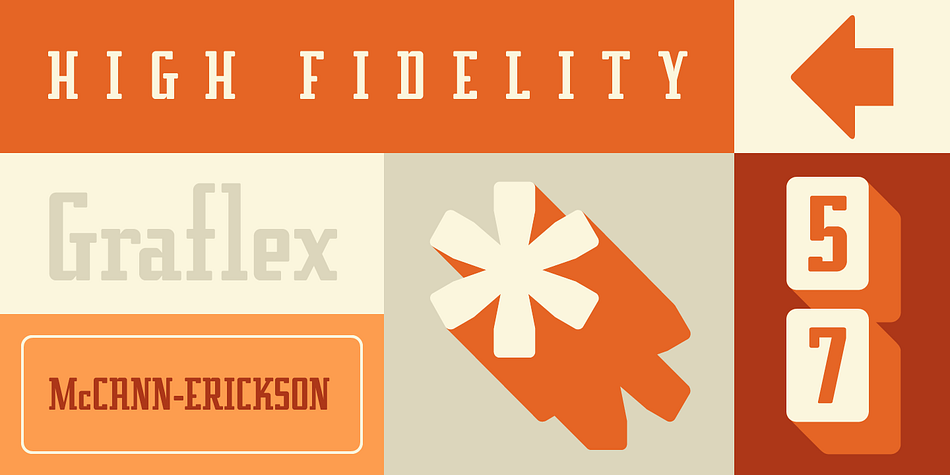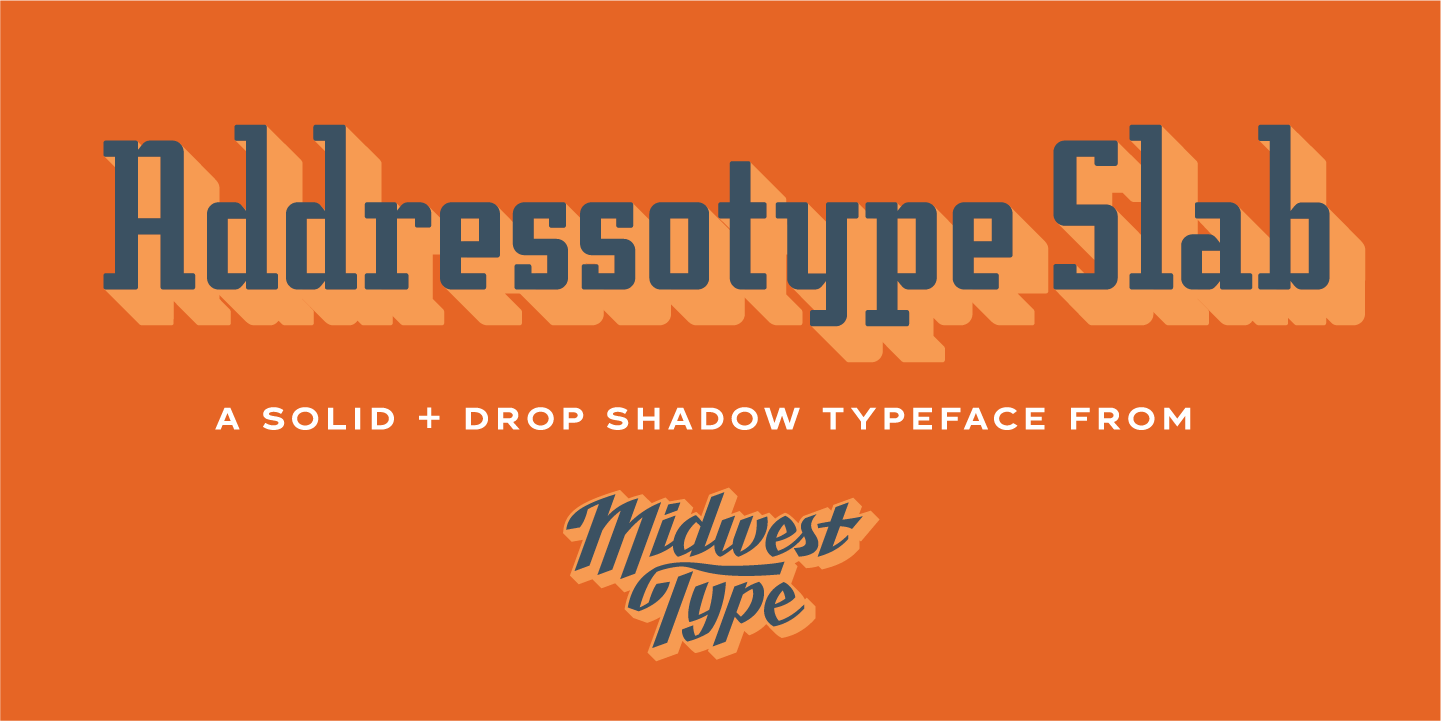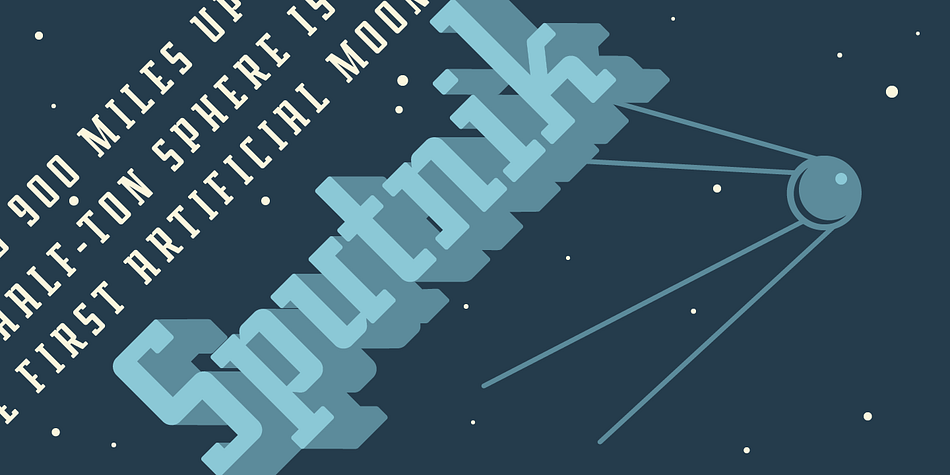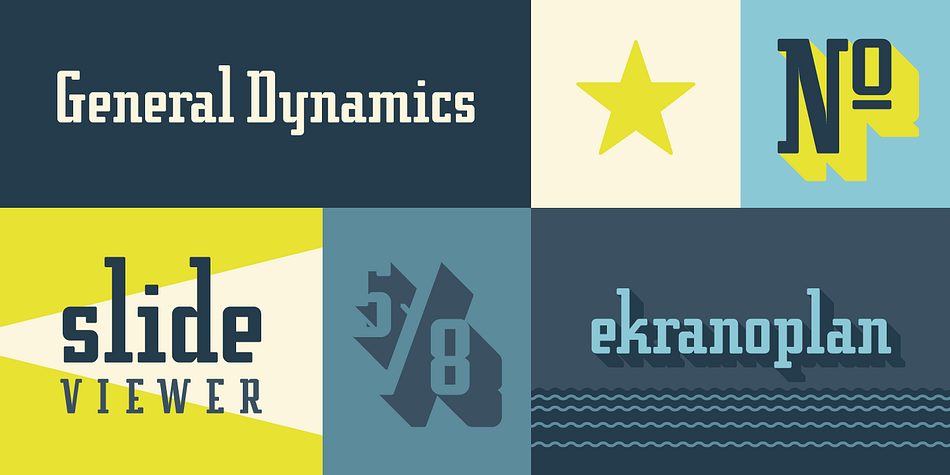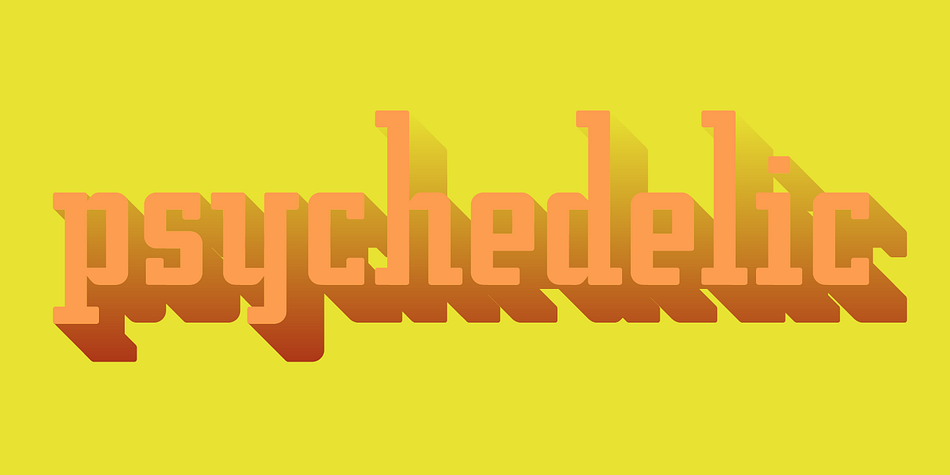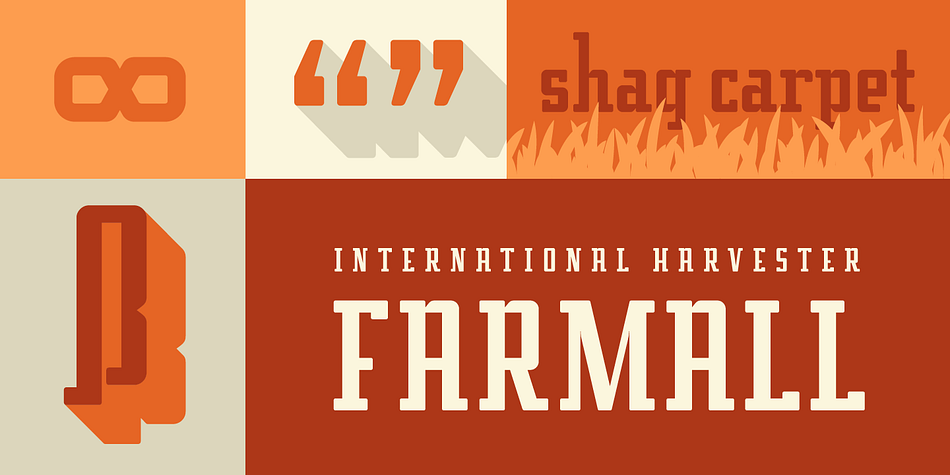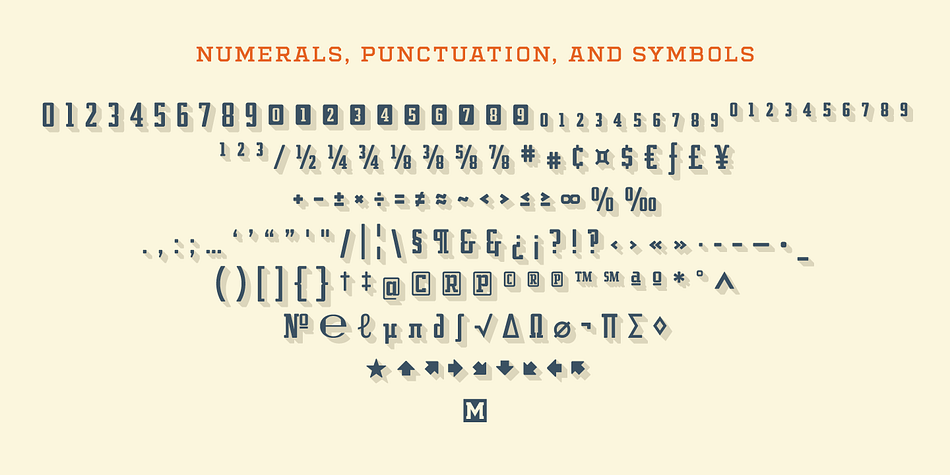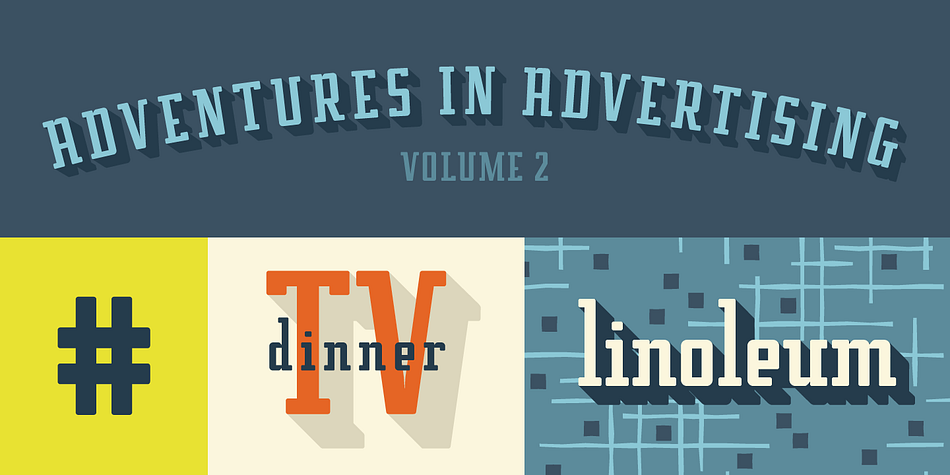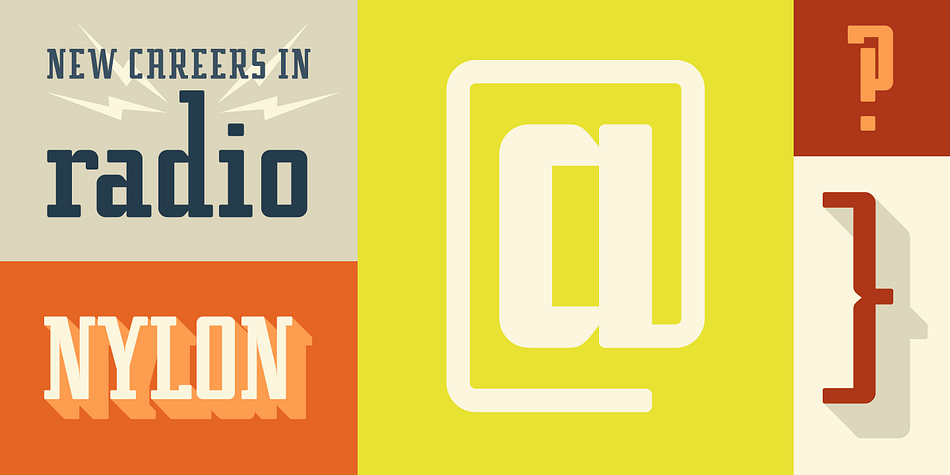
Designed by Jesse R. Ewing, Addressotype Slab is a slab serif font family. This typeface has two styles and was published by Midwest Type.
Addressotype Slab is the serifed cousin to Addressotype, a constructed, streamlined gaspipe design with gently rounded forms. Perfect for getting the right vintage look, but also solid on its own for modern branding and identity projects. And if you want to grab attention, layer in the extra deep drop shadow for a bold statement!